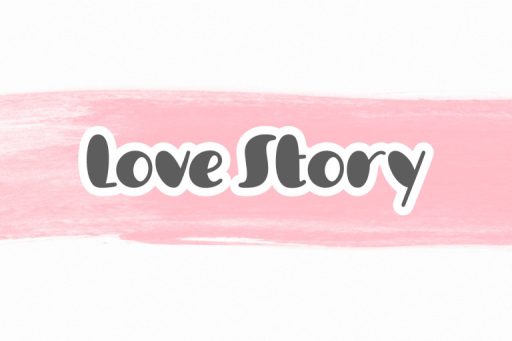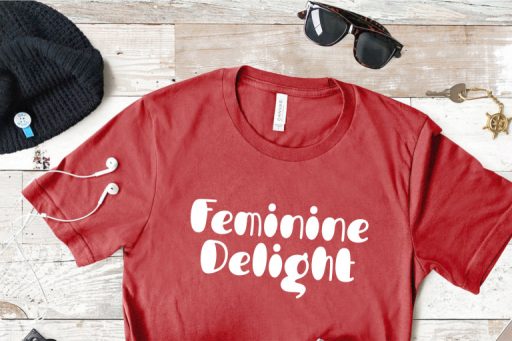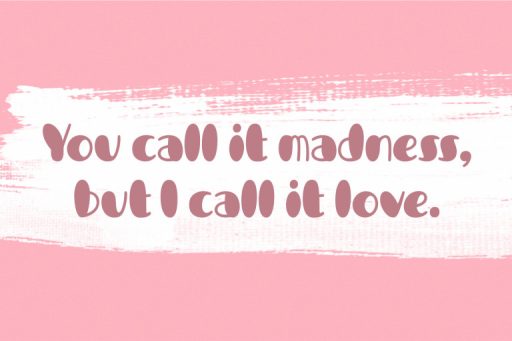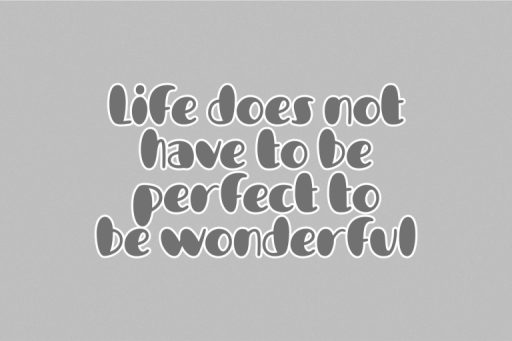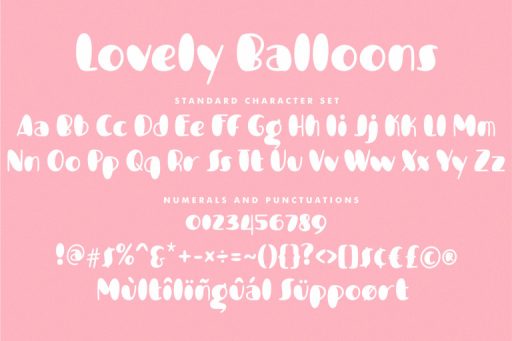
Lovely Balloons Font
Lovely Balloons – Display Font from Jimtype Studio
Welcome to ‘Lovely Balloons‘ Font, where whimsy meets creativity! This cute and playful bubble font is the perfect addition to your Design Cricut. ‘Lovely Balloons‘ Font adds a touch of charm and cheer to your designs, making it ideal for invitations, banners, and graphics that need that extra dose of joy. Explore our font collection today and make your designs pop with the delightful ‘Lovely Balloons’ Font.